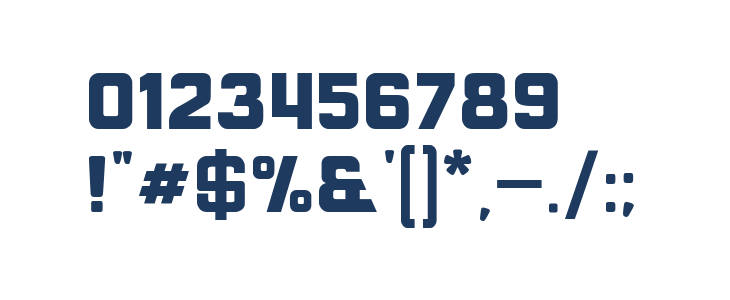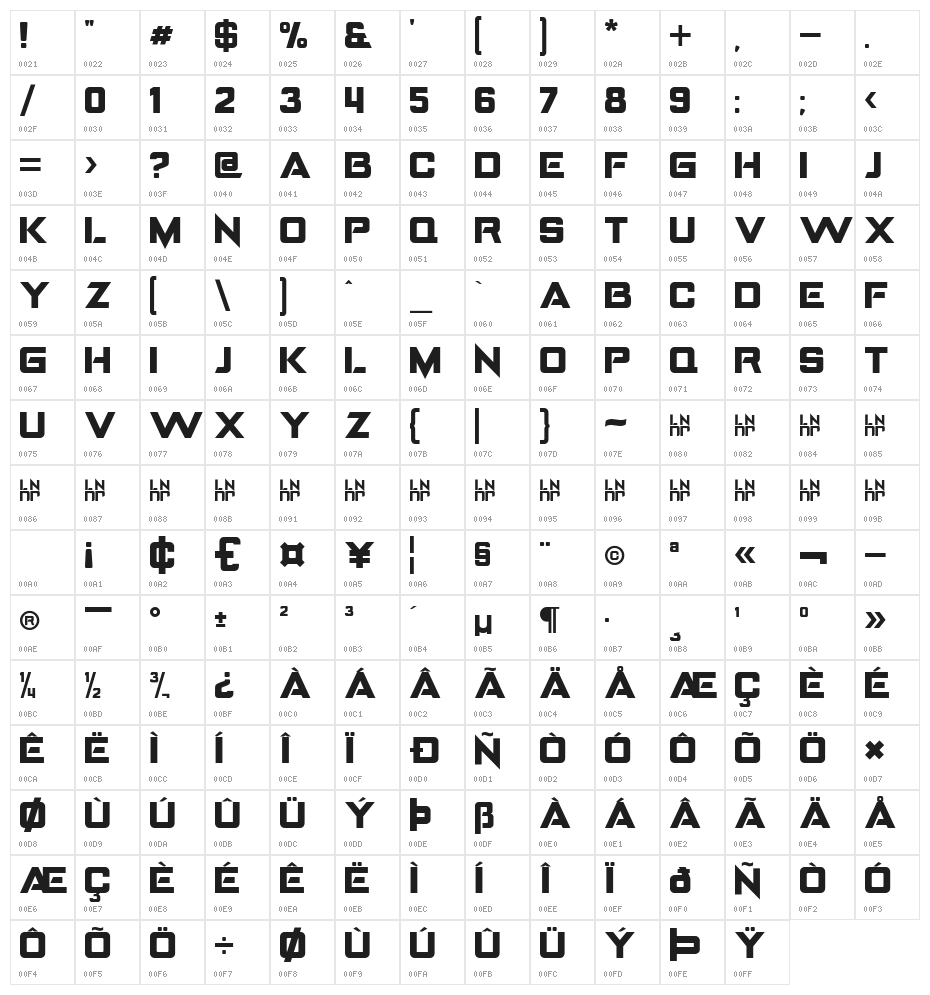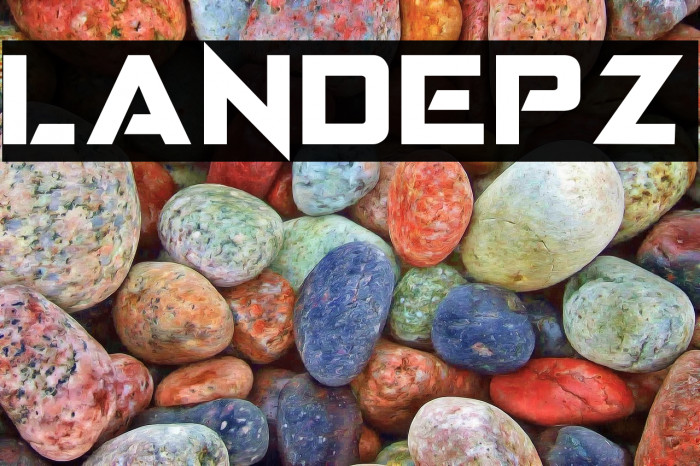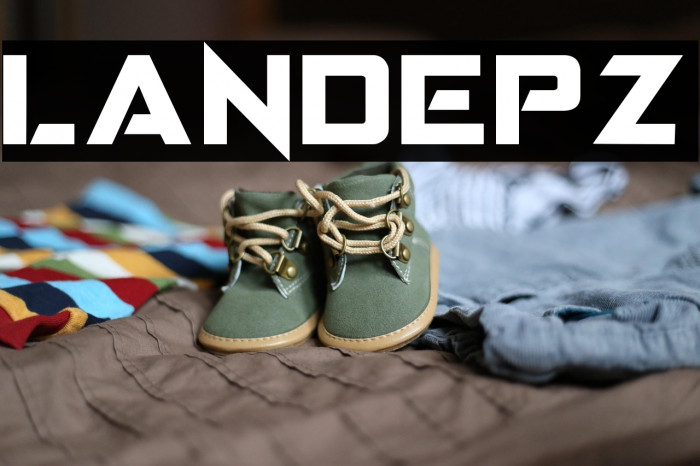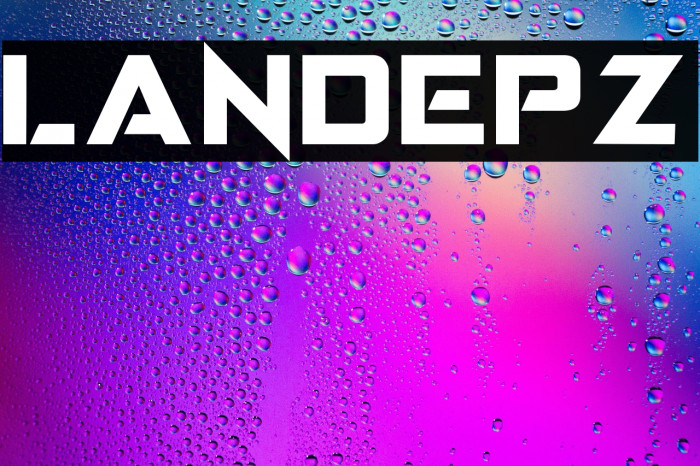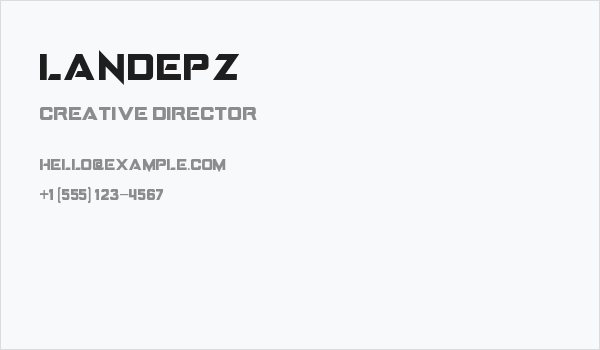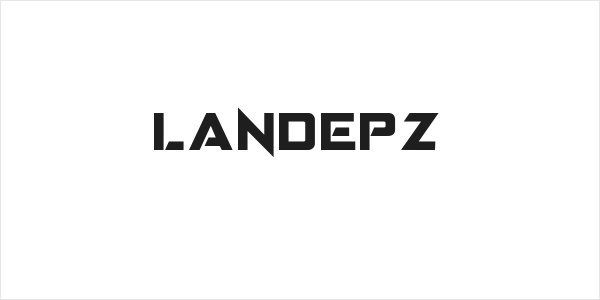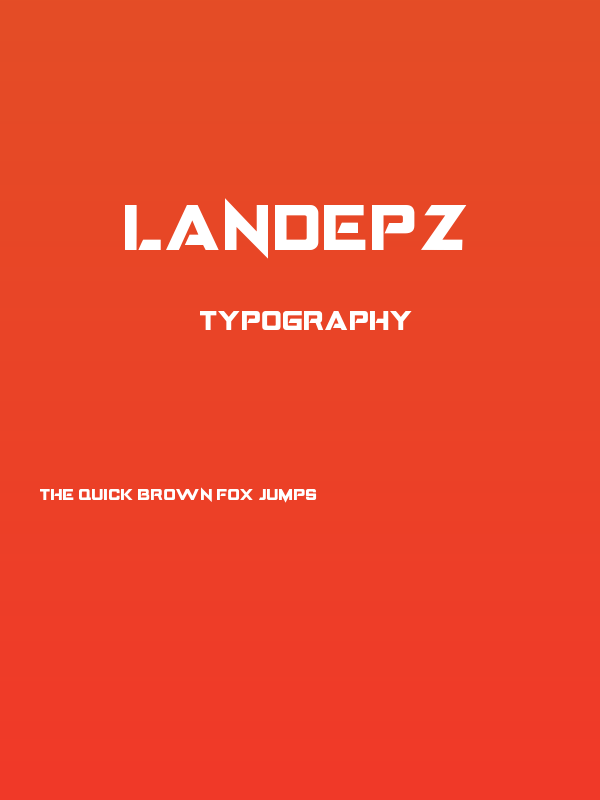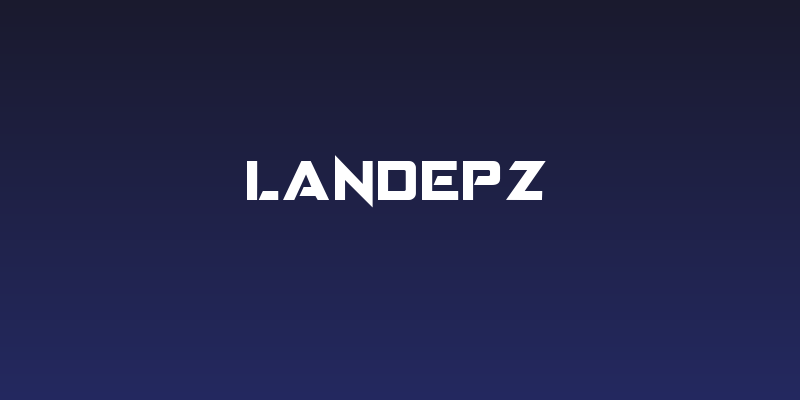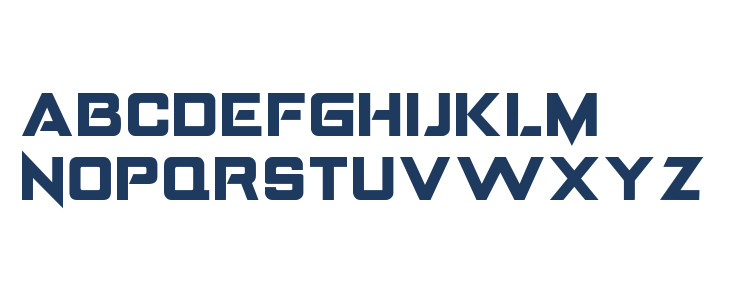
LANDEPZ Font
LANDEPZ Description
This font features a bold and geometric design with a modern aesthetic. The characters are constructed with sharp angles and straight lines, giving it a futuristic and industrial feel. The uppercase letters are particularly striking, with a uniform height and width that create a cohesive look. The numbers and special characters maintain the same boldness and angular style, ensuring consistency across all glyphs. The font's strong presence makes it ideal for attention-grabbing headlines and impactful designs.
| Proposed Projects | Ideal for branding, posters, video game graphics, and futuristic-themed designs. |